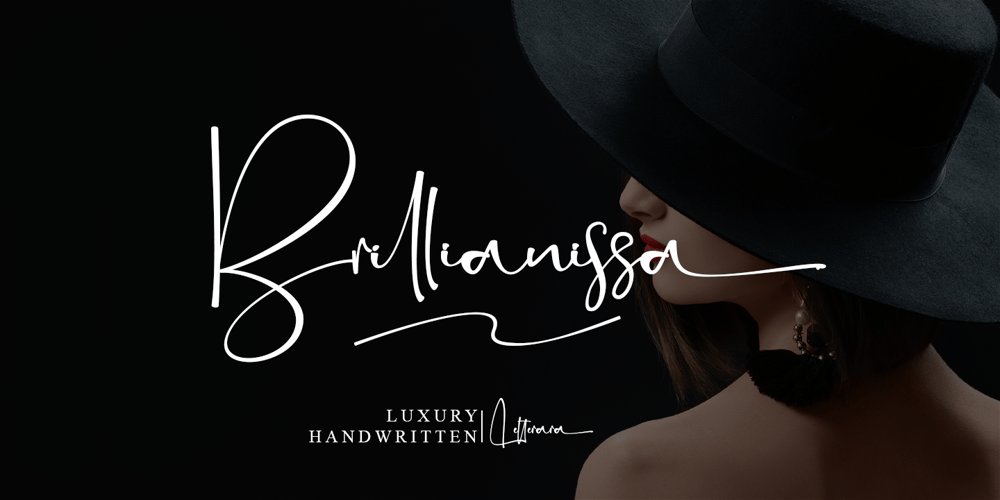
Brillianissa Font Family was designed by Thomas Aradea and published by Letterara. Brillianissa contains 2 styles and family package options. Brillianissa is an enchanting handwritten font. This versatile script font has a wide spectrum of applications ranging from greeting cards, logos to headlines and is guaranteed to add a romantic or casual feel to your next project. Add it confidently to your projects, and you will love the results.This font is PUA encoded which means you can access all the beautiful glyphs and swashes with ease!